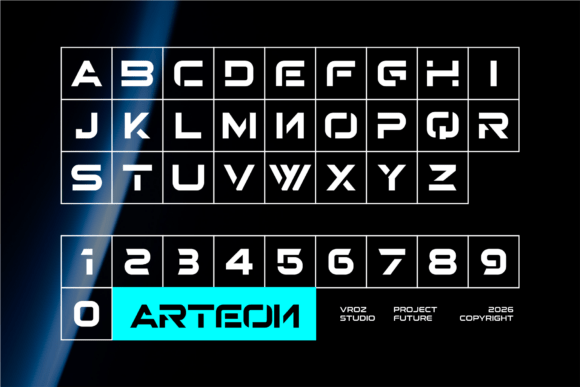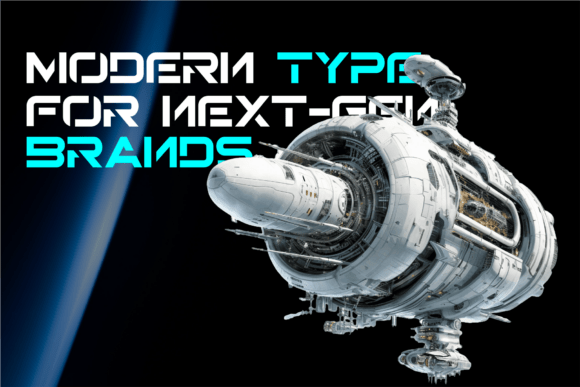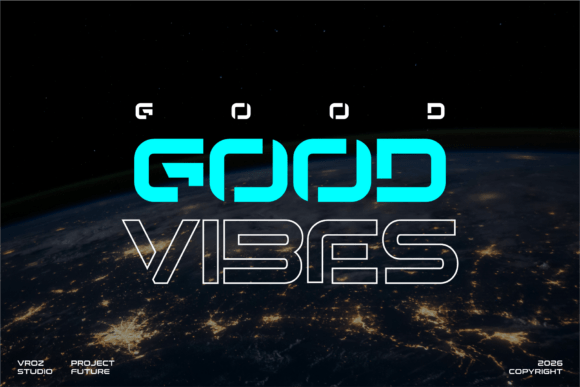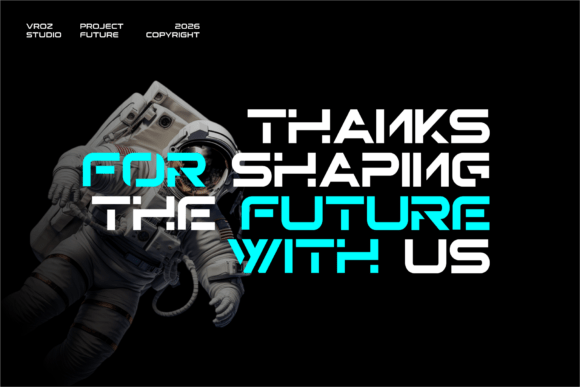
The Perfect Typographic Tool for Tomorrow’s Designs
Have you ever stared at a blank design canvas, searching for the perfect font to bring your innovative project to life? For many designers, the quest for the ideal typography can be a daunting task. But what if you could unlock a font that not only elevates your designs but also speaks to the cutting-edge spirit of your brand?
| 👤 Author | Vroz Studio |
Enter the Arteon Font, a modern and futuristic sans-serif display font designed to deliver a clean, sharp, and professional appearance. This versatile font is perfect for tech-driven, digital, and innovative branding projects, and its well-balanced letterforms ensure excellent readability at any size. Whether you’re creating logos, headlines, posters, UI designs, or websites, the Arteon Font is an excellent choice for designers who want to make a lasting impression.
Arteon Font Key Features
- Font Family: Arteon Font is a modern sans-serif font family with multiple weights and styles, including light, regular, bold, and italic.
- Character Set: Supports a wide range of languages, including Latin, Cyrillic, and Greek scripts, with over 1000 glyphs and 600 characters.
- Font Size and Resolution: Designed to be highly legible at various font sizes, from 8pt to 72pt, with optimal performance at 300 DPI (dots per inch) and 600 DPI.
- Unique Characteristics: Arteon Font features a unique blend of geometric and organic shapes, resulting in a clean, modern aesthetic with excellent readability.
Arteon Font Review
Overall, I’m quite pleased with the Arteon Font. It’s a sleek and modern sans-serif typeface that works well for both digital and print materials ✨. Here are a few strengths:
- Highly legible: The Arteon Font is designed to be clear and easy to read, even at small font sizes.
- Modern feel: The font’s clean lines and minimalist aesthetic make it perfect for contemporary designs.
- Wide language support: The Arteon Font supports a wide range of languages, making it a versatile choice for global projects.
However, I do have a few concerns about the Arteon Font ⚠️:
- Limited expressiveness: While the Arteon Font is great for body text, it may not be the best choice for headlines or titles that need to convey emotion or emphasis.
- Some font sizes may appear too condensed: At smaller font sizes, the Arteon Font can appear a bit too condensed, which may affect readability.
Overall, I think the Arteon Font is a solid choice for designers looking for a modern, legible sans-serif typeface. While it may have some limitations, its strengths make it a great addition to any design project.
The Arteon Font is ideal for:
- Creatives looking for a modern, elegant font for their designs.
- Businesses seeking a professional font for their branding and marketing materials.
- Designers who want to add a touch of sophistication to their typography.
Compared to Arteon Font, Playfair Display has a more ornate and luxurious feel, while Arteon Font has a more modern and clean look. Playfair Display is better suited for applications where you want to convey elegance and sophistication.